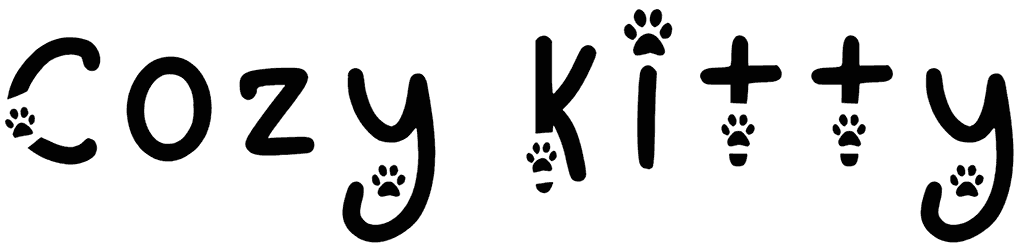
Cozy Kitty Font
Cozy Kitty is a fancy decorative font that makes a charming impression in many prints and digital settings, especially those with a cartoonish tone. You can use this cartoon font to evoke feelings of cool joy.